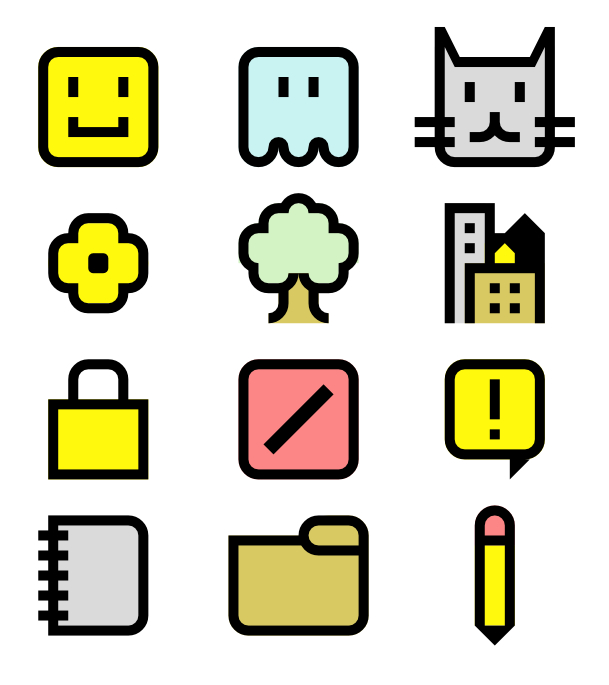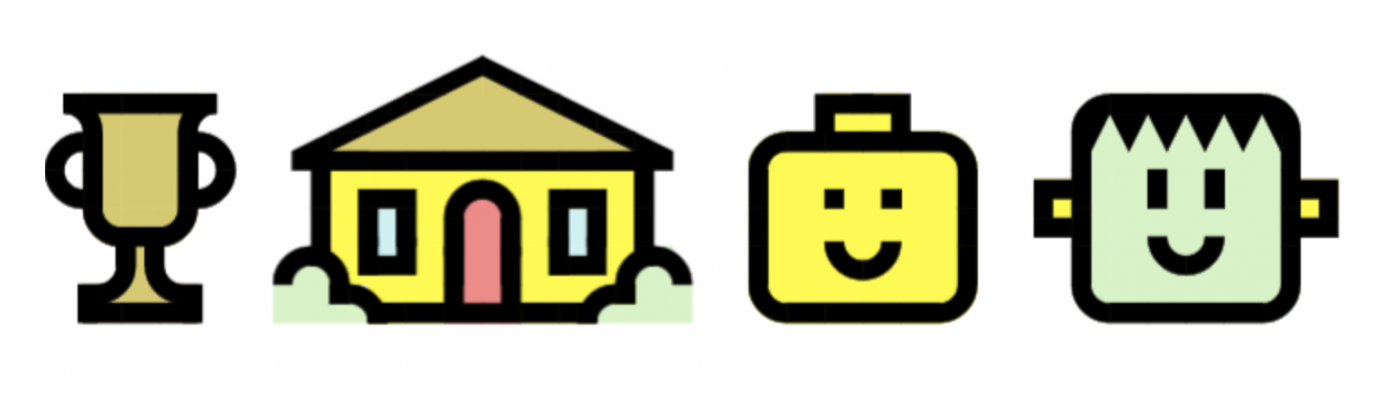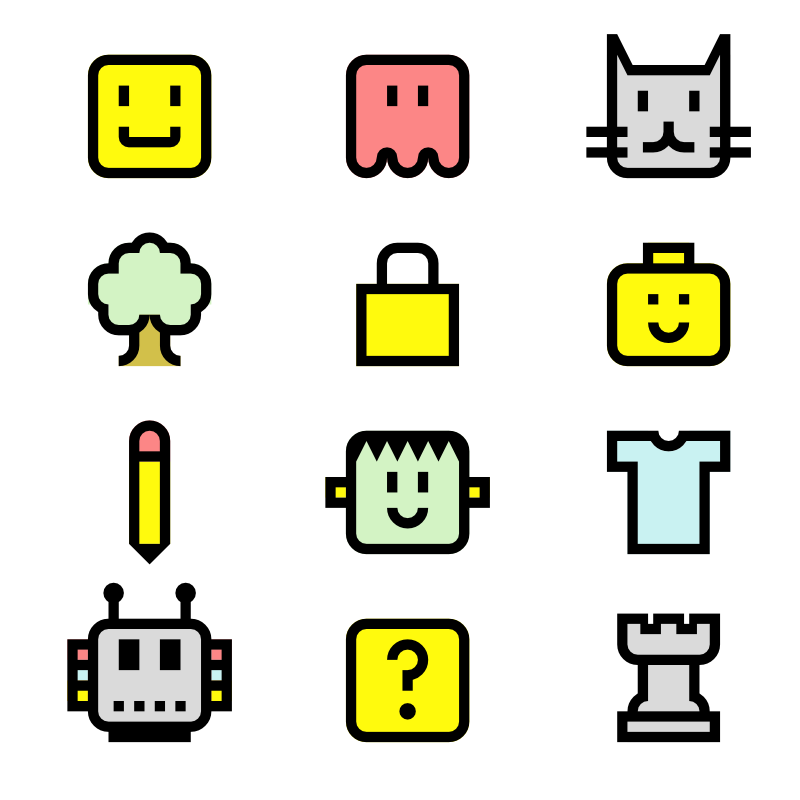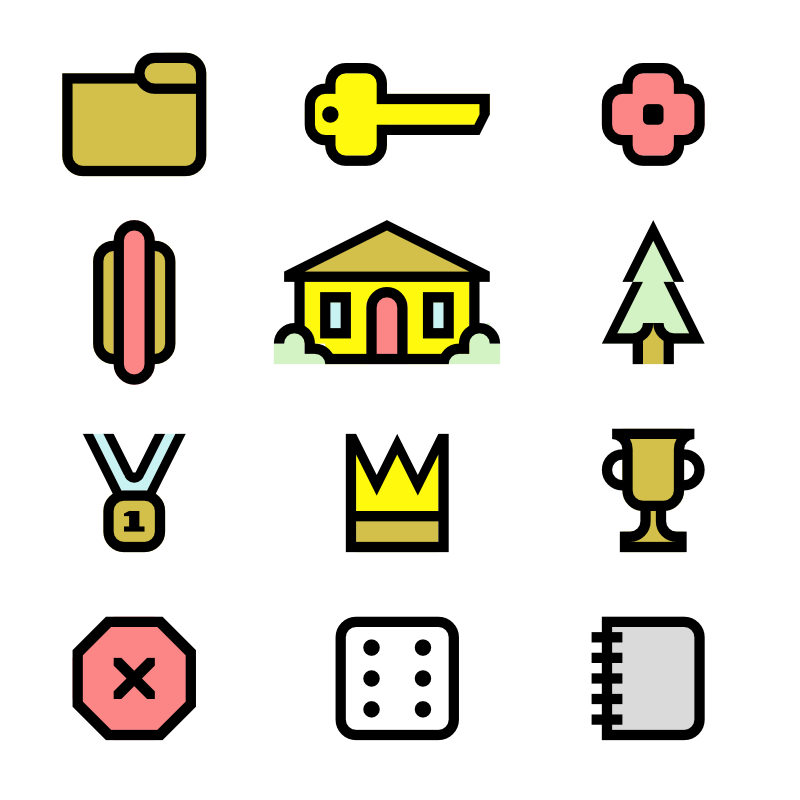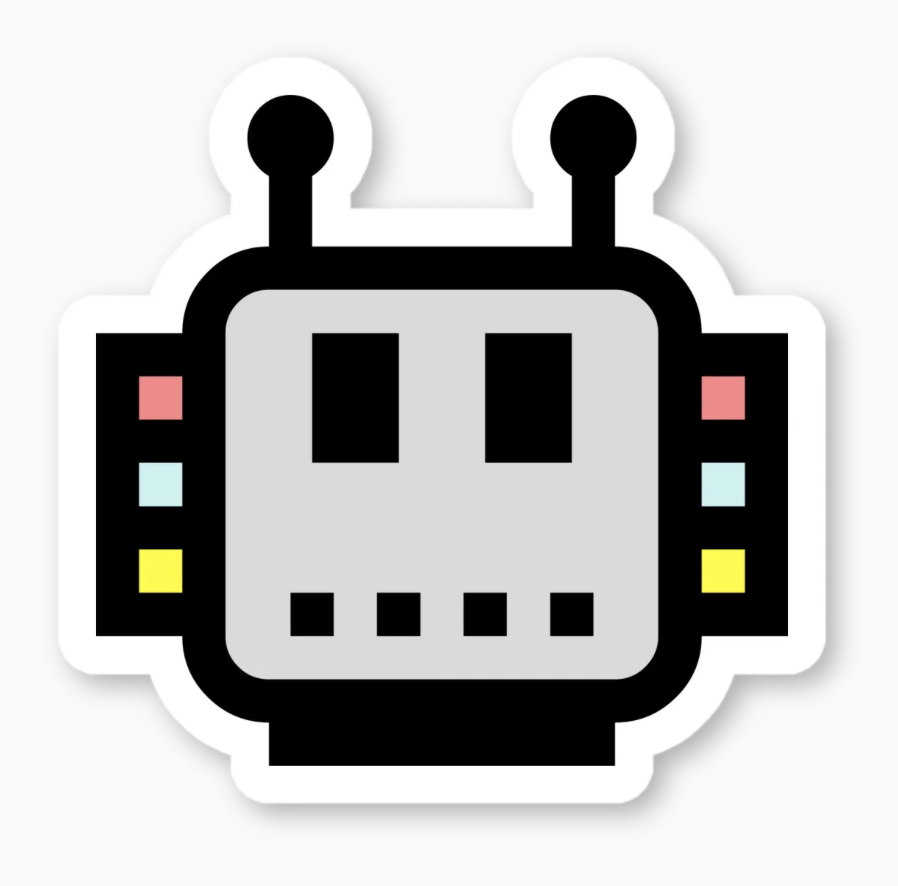
I've added a few more. Especially love the house, the minifig head and happy Frankenstein.
Okay, I think I'm done with the initial push. Rearranged the characters into logical groupings. The faces are together, the awards are together, the office supplies, etc. I don't know where I'm going to use the minifig heads, but I'll find a project to insert them into...
A few refinements and new icons...
Cotton Bureau finally has on demand stickers. I added the Robot and Happy Frank from this set.